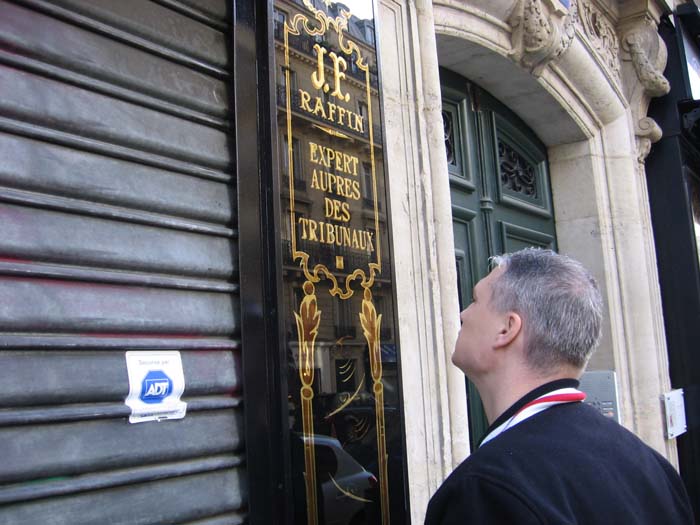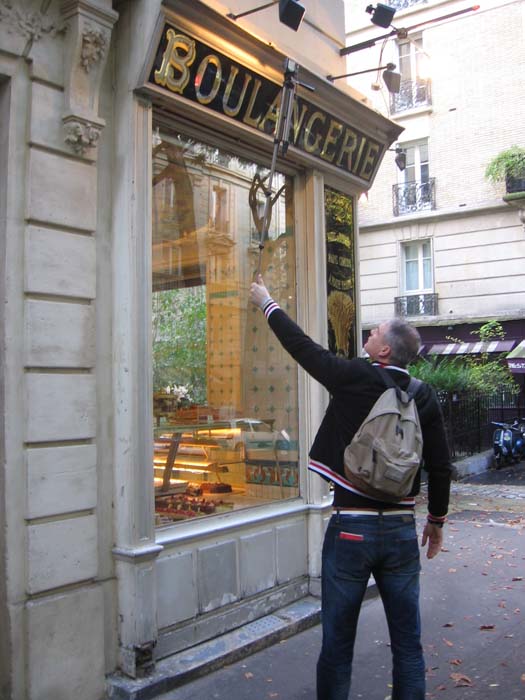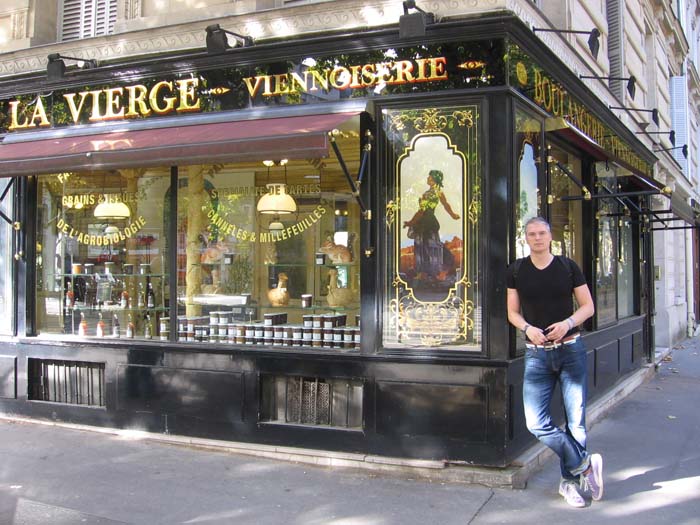
Paris glass and Lucien Helle
The weekend of 29th Oktober I have planned a studytrip to Paris.
The things i want to study at close eye are the decorative glass shopfronts made around 1900-1940 and nowadays by Lucien Helle
I have studied his website, his locations and tried to make an apointment with him.
Lucien apparently did not speak English so our conversation went on in French.
I introduced my self as a Dutch guy who is very interested in the old craft and asked him if it would be possible to meet eachother and talk glass in his shop in Paris.
Result: "He freaked out and clearly stated that no one is allowed in his shop and especially not other glass fanantics!
The phone was abruptly ended from the paris side.... :shock:
But as you know me, I can not rest untill I have answers.
I pursued my quest for knowledge and researched for weeks now all there is to know or find about the Parisian glass shopfronts.
In a French book I recently purchased there were a lot of clues: Most of the shopfronts posted on the Lucien Helle website were actualy not made by him but by other studios like Benoit et Fils who worked about 80 years ago.
In the studio everybody had their own speciality: gilding, painting on canvas, woodworking etc.
During my research I noted down every shopname, every streetname and shop number and looked on the google maps streetview to find out if the glass shopfronts are still there.
Some buildings are torn down on other locations the glass is hidden from view by wooden panels (often covered by several different layers of paint and old posters or graffiti).
At this point most likely I know more about the shop facade than the current shop owners.
All the remaining adresses are in my google map for you to look at and visit if you are about to make a trip to Paris.
I will visit allmost all the locations in the end of Oktober and will photograph them.
If you have any questions on certain details you want to know more about, now it is time to ask me, so I can take a closer look at that when I will be there.
I to have tried in vein to contact Mr. Helle, At one time I found an article on a web site called Ruavista that talked about glass signs.
"Reverse painted glass signs are rarely produced today. Certain shops, in search of an authentic touch, call on one of the few craftsmen still using reverse glass painting techniques (In Paris, Lucien Helle, 2 rue du Pas-de-la-Mule 0144789669). In contrast, these signs were quite popular at the end of the 19th century, as the only alternative to painted signs. Today, parisian bakeries still testify to craftsmen's skills of that era. But, reverse painted glass signs were certainly not exclusive to bakeries. The photo gallery presented here shows the diversity among shops of this time period, in addition to the variety of typography used in sign production."
Someone really needs to write an updated article despelling this idea that glass signs are rarely produced this days. Who know maybe it will be you !
That would be my dream trip. For years I've wanted to see those Parisian signs first-hand. Unfortunately, the cost of travelling to France is prohibitive. it has always seemed like the impossible dream to actually get there. I am insanely jealous. hahaha
I hope you have a great camera. I want to see lots of photos. Context shots of the building, close-ups, even photos of the back, anything that helps to illuminate the techniques used and show how it was done.
It's a pity you had this type of phone call with M. Helle. I wonder if there was not some misunderstanding. I had some email correspondence with him a few months ago and he didn't seem to be this way. In fact he invited me to visit him if I come to Paris.
I suggest you give him another opportunity because he is clearly passionate and interested in his work.
You probably already have these, but a couple of books featuring Benoist & Fils work and other Parisian signs:
Boulangerie by Rambali, Paul 1994. Macmillan, New York
Entrez, Signs of France by Acimen A. and Rothfeld S. 2001. Artisan, New York
Re: Paris glass and Lucien Helle
Roderick, there is change that Mister H. will have a nice tall visitor who will put his boot in the door opening; and I am not selling god. haha.
Bruce, I will make as many photo's I can possibly make.
Mike, Any tips on the camera, filters or angles I should use?
erikwinkler wrote:......Mike, Any tips on the camera, filters or angles I should use?
Not Mike here, but just remember that flash is going to make a big nasty glare on any flat glass surface.
Ofcourse you want to see some photo's so here they are: